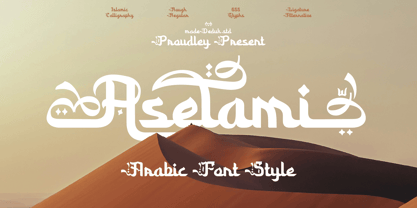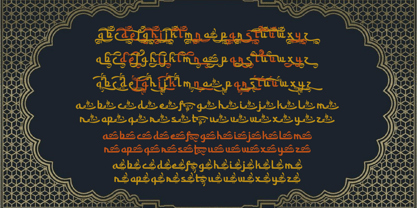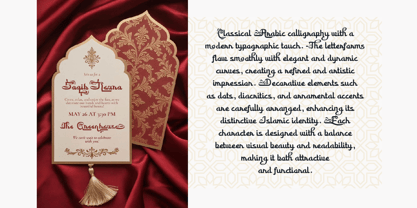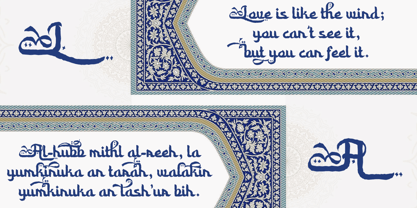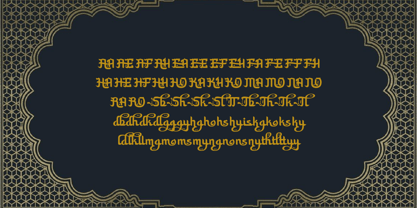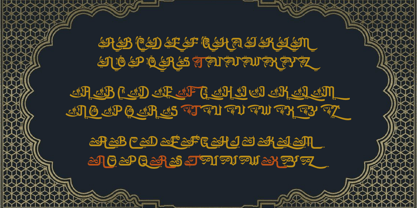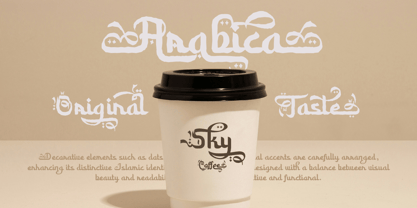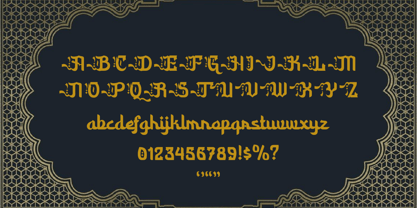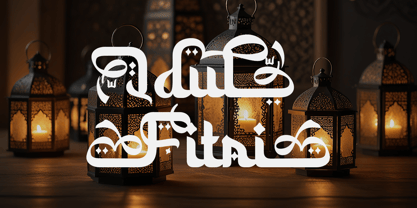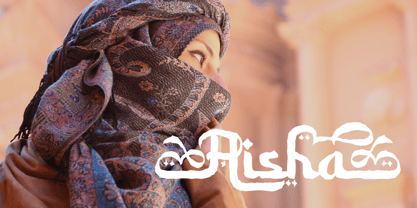
Aselami
by madeDeduk
The Aselami Font Family was designed by madededuk and published by madeDeduk. Aselami contains 2 styles and family package options. More about this family
Introducing, Aselami font presents a harmonious blend of classical Arabic calligraphy with a modern typographic touch. The letterforms flow smoothly with elegant and dynamic curves, creating a refined and artistic impression. Decorative elements such as dots, diacritics, and ornamental accents are carefully arranged, enhancing its distinctive Islamic identity. Each character is designed with a balance between visual beauty and readability, making it both attractive and functional. In addition, this font carries a strong and sophisticated character, making it suitable for various design purposes such as logos, titles, posters, and other creative works with an Islamic theme. The calligraphic nuance gives a sense of luxury, spirituality, and cultural richness, while its modern touch keeps it relevant for contemporary design. Overall, this font delivers a unique aesthetic by combining traditional values with a modern visual style.